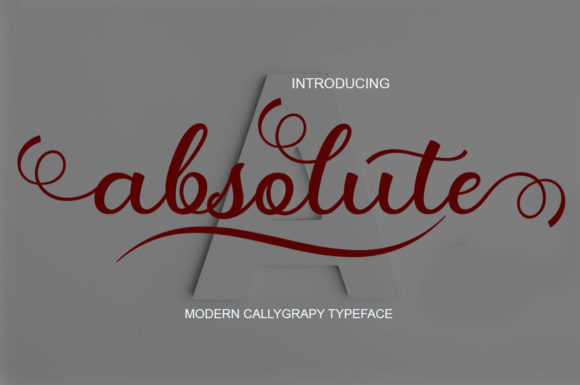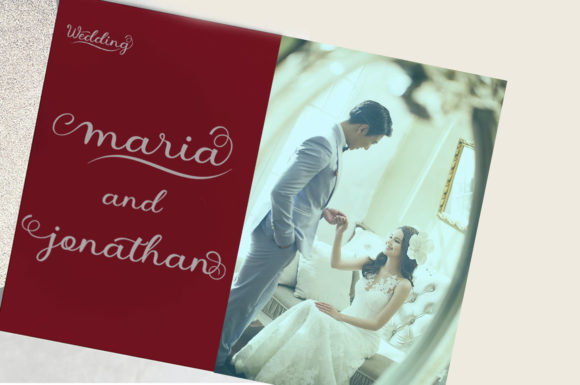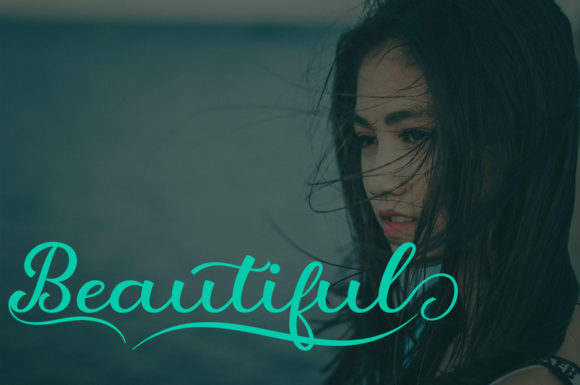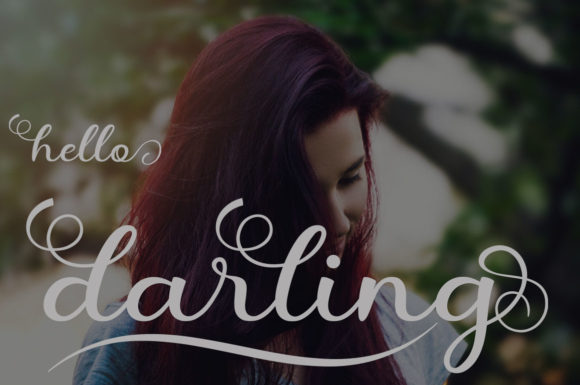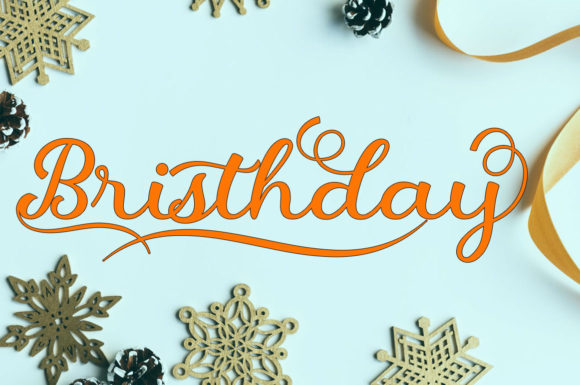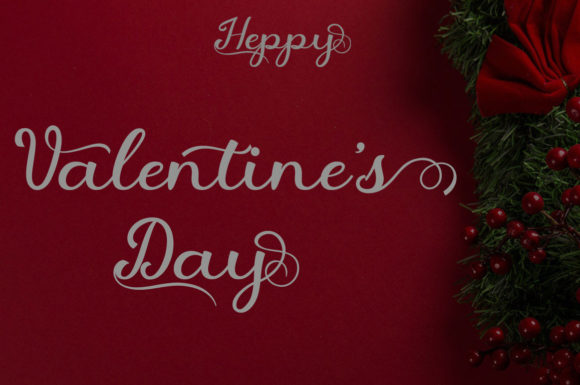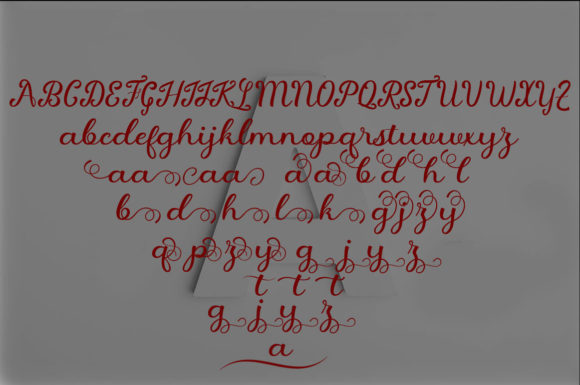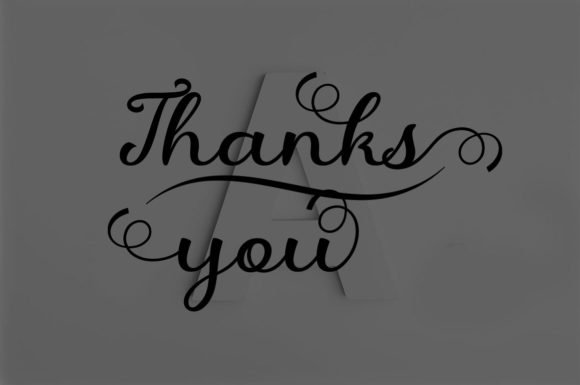
HomeScript FontsAbsolute Font Script Fonts Absolute Font FacebookXPinterestWhatsApp Absolute Font Poster 2 Absolute Font Poster 3 Absolute Font Poster 4 Absolute Font Poster 5 Absolute Font Poster 6 Absolute Font Poster 7 Absolute Font Poster 8 About Absolute Font The Absolute is a modern calligraphy font. It has unique forms of calligraphy and a very natural writing style. DOWNLOAD NOW People also explored Summer Vibes Font Simple Farmhouse Minimalis Valentine Fabulous Font Hey Jintan Font Asheeqa Font Rahardian Font Sambalado Script Font Thanthen Font 296 0 TagsAbsolute Font Previous articlePlease Oneself Duo FontNext articleShella Script Font LEAVE A REPLY Cancel reply Comment: Please enter your comment! Name:* Please enter your name here Email:* You have entered an incorrect email address! Please enter your email address here Website: Save my name, email, and website in this browser for the next time I comment. Personal Use Free Eva Personal Use Free Read more about this font Madison Script Personal Use Free Read more about this font Einstaint Personal Use Free Read more about this font Christmas Diary Personal Use Free Read more about this font BLOG Free Fonts Risk: Why Free Fonts Can Be Dangerous for Designers Free Fonts Risk: Why Free Fonts Can Be Dangerous for Designers Using free fonts is a common practice in web and graphic design. However, the... Where to Buy American Fonts Online in 2024 5 Fonts That Will Dominate Design Trends in 2026 Best Fonts for YouTube Videos: Make Your Thumbnails Stand Out